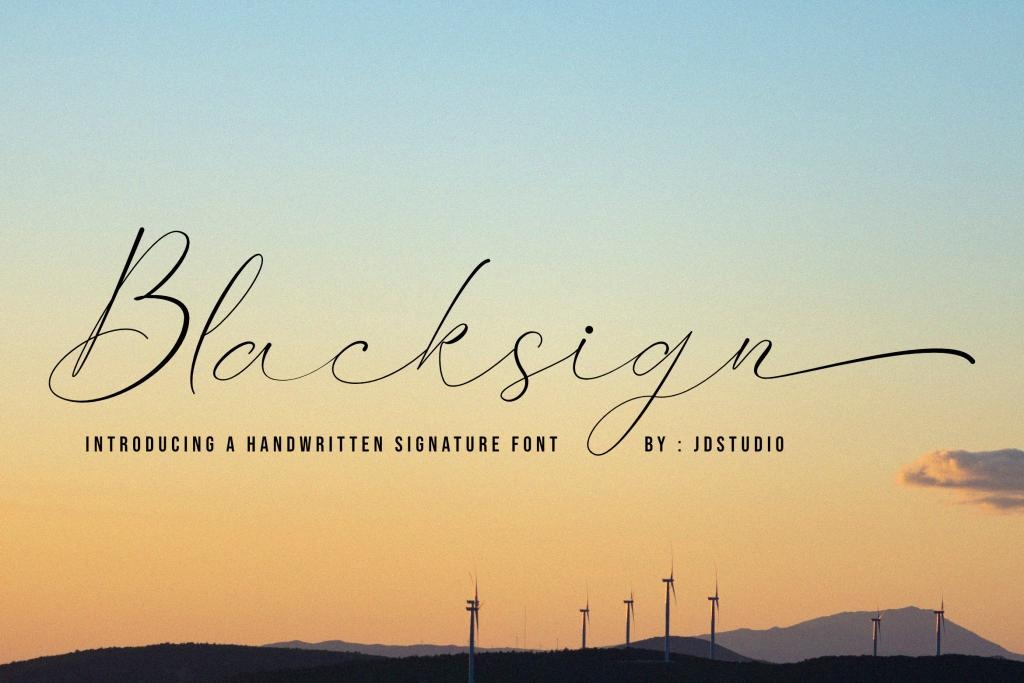
Blacksign Typeface
Blacksign Script Typeface
It’s a modern and stylish font created by JDStudio with signature-like characteristics. The presence of several ligatures and swash characters adds a natural impression to this font. Fall for its ravishing style and use it to create gorgeous designs. This font is PUA encoded which means you can access all glyphs and swashes with ease!